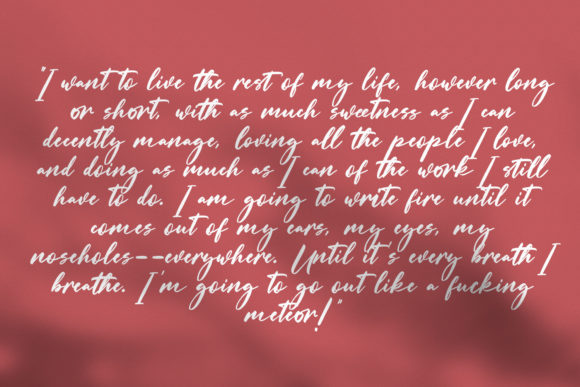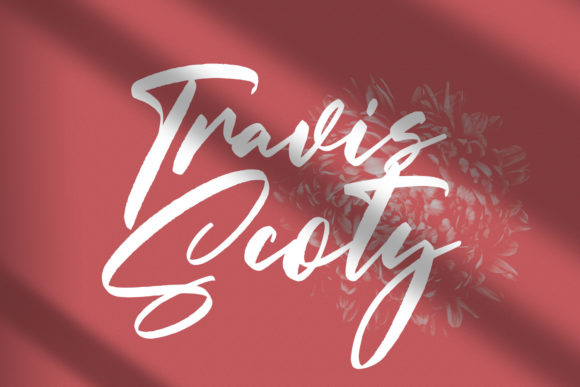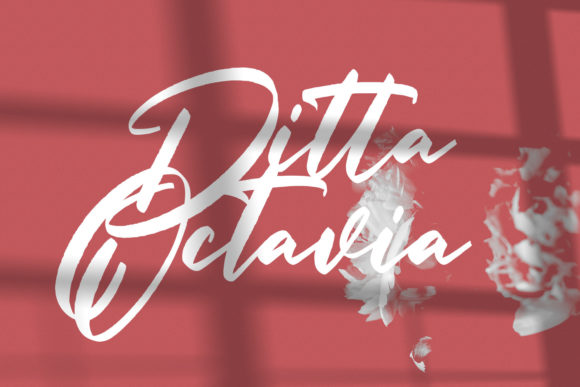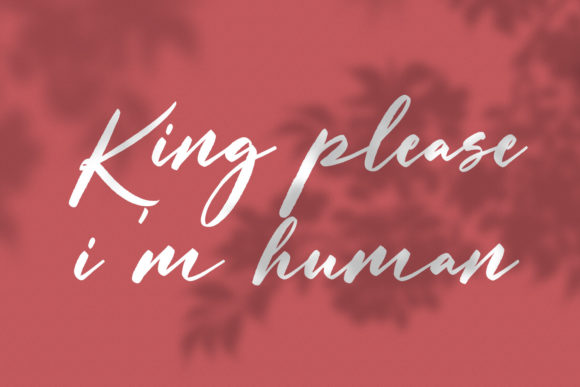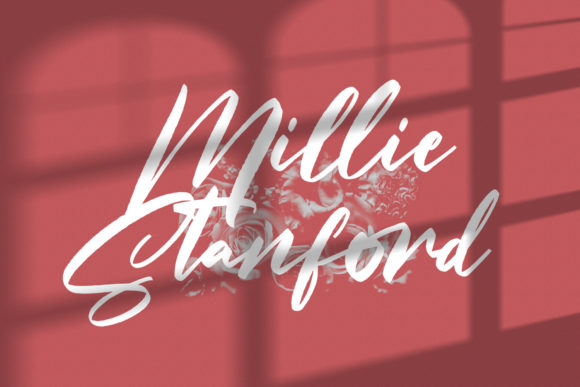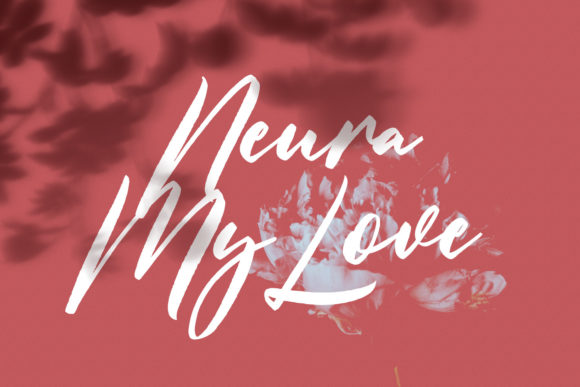
Introduction to Lillyfleurs Signature Font
Lillyfleurs Signature is a lovely and timeless handwritten font.
Key Features of Lillyfleurs Signature Font
Why Choose Lillyfleurs Signature Font?
Lillyfleurs Signature Font offers exceptional quality and versatility, making it a valuable addition to your design toolkit. Whether you’re creating for personal projects or commercial use, Lillyfleurs Signature Font delivers professional results.